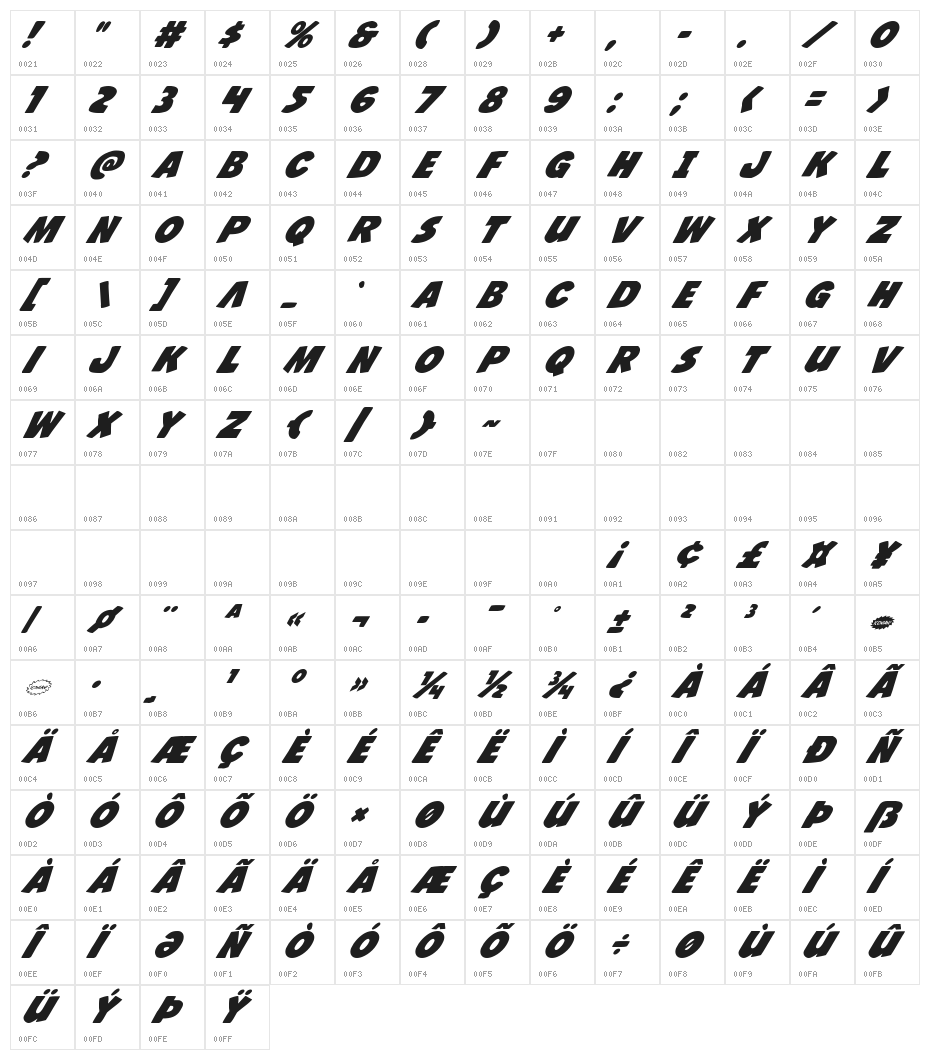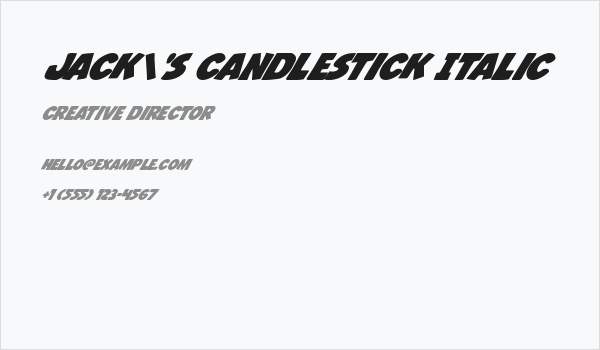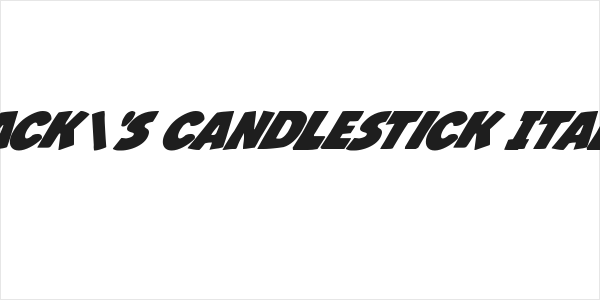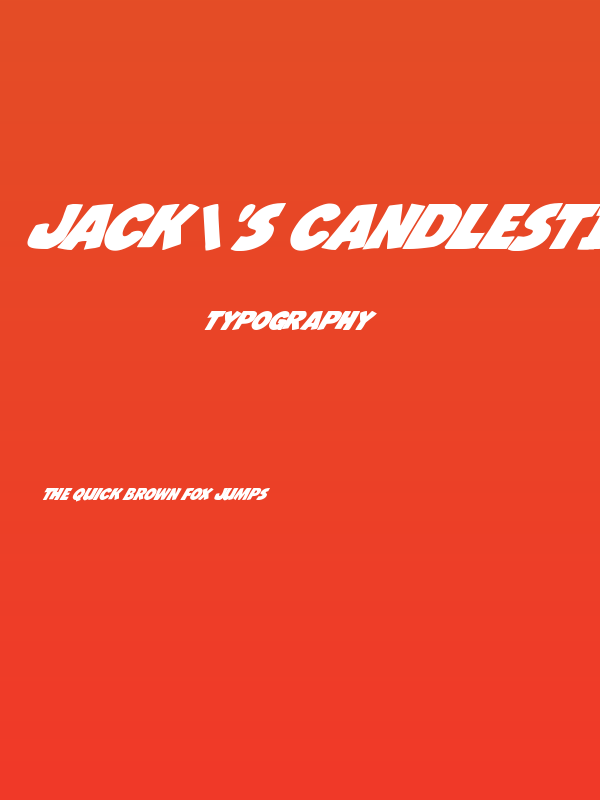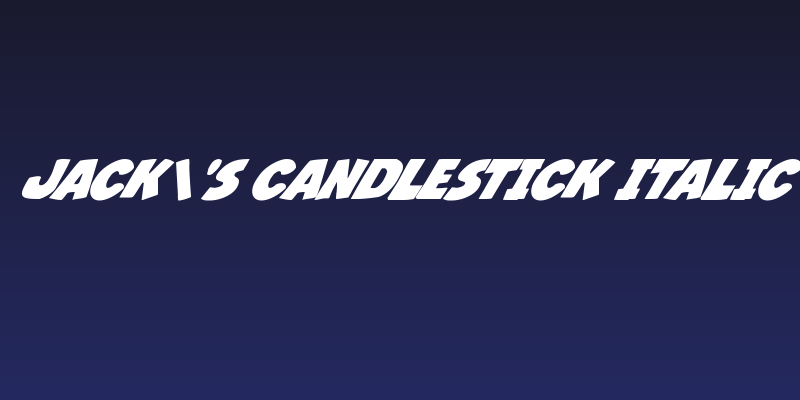
Jack's Candlestick Italic Font
Jack's Candlestick Italic Description
This bold and dynamic font features thick, slanted characters that convey a sense of movement and energy. The letters are heavily weighted with a strong presence, making them ideal for attention-grabbing designs. The italic style adds a sleek and modern twist, enhancing the overall aesthetic. The font maintains a consistent thickness throughout each character, providing a uniform appearance. Its boldness is complemented by tight character spacing, ensuring that each letter stands out distinctly while maintaining a cohesive look. The font's unique style makes it suitable for a variety of creative applications.
| Proposed Projects | Ideal for posters, headlines, branding, and any design requiring a bold statement. |